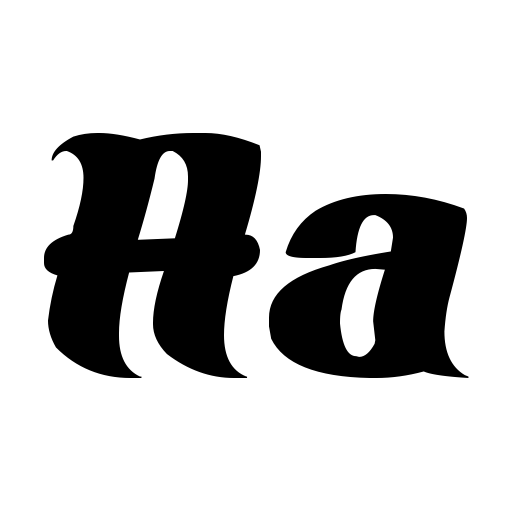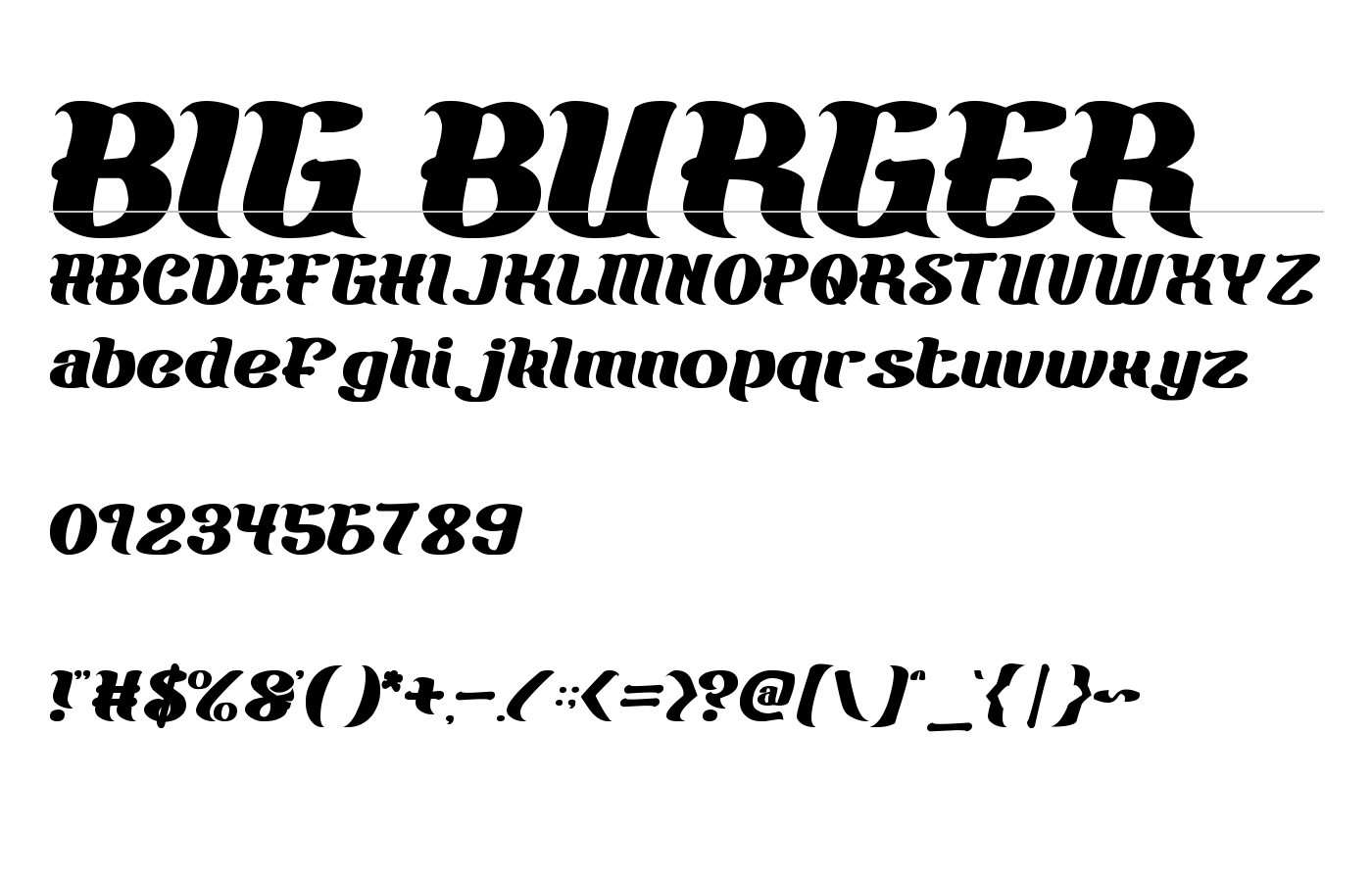
BIG BURGER is a bold, playful serif font with a strong presence and slightly condensed letterforms that feature high contrast between thick and thin strokes. Its unique, rounded serifs and dynamic curves give it a vintage yet energetic feel, making it perfect for eye-catching headlines, logos, and branding in food, entertainment, and retro-themed projects. This font combines personality and legibility, ideal for designs seeking a fun and memorable style.
BIG BURGER Font
About BIG BURGER Font